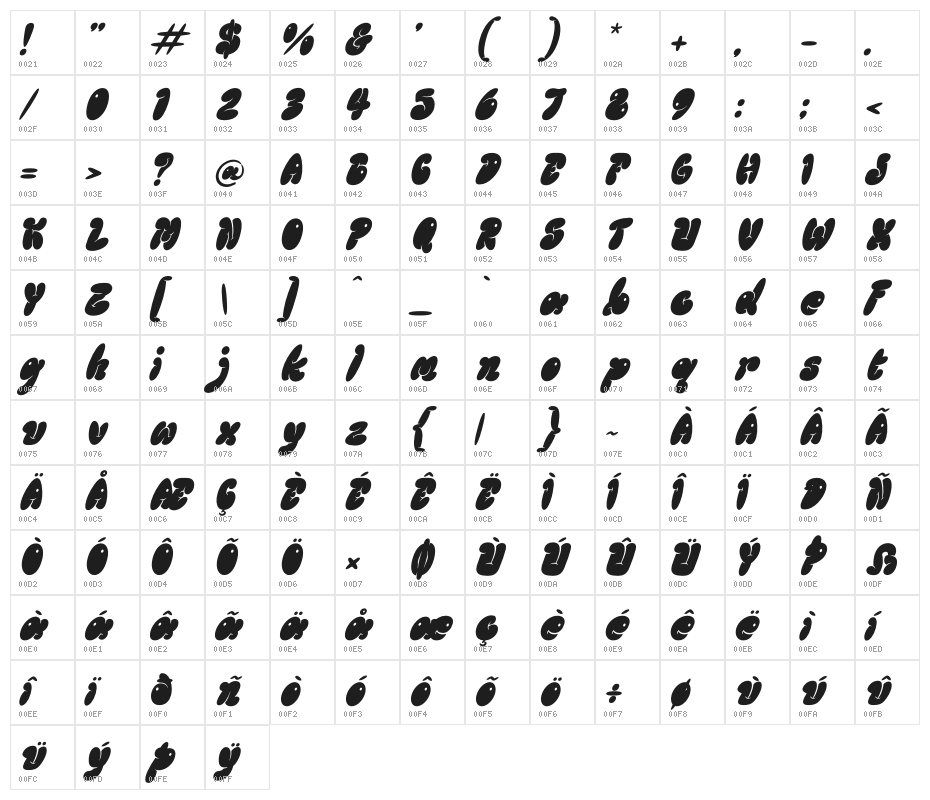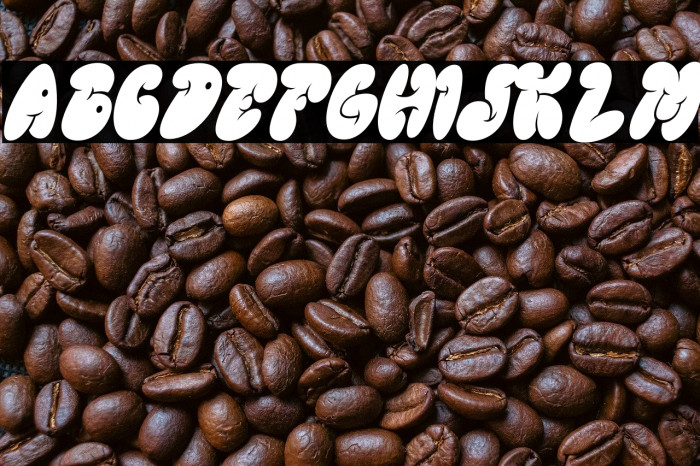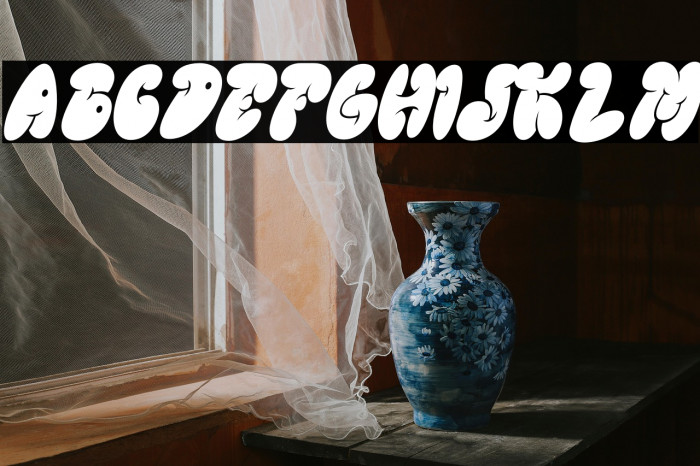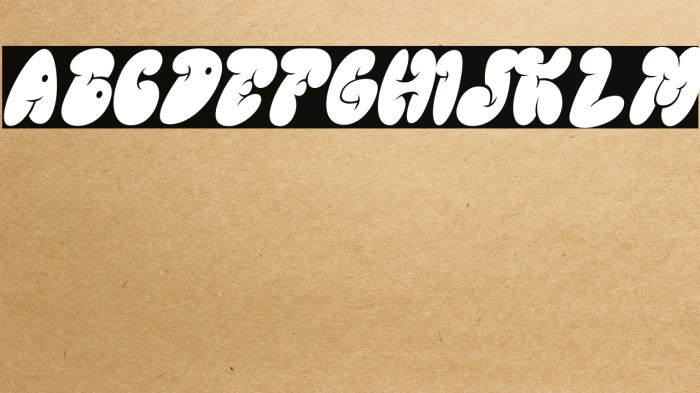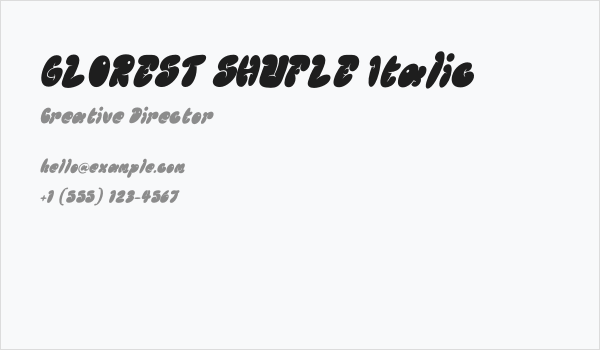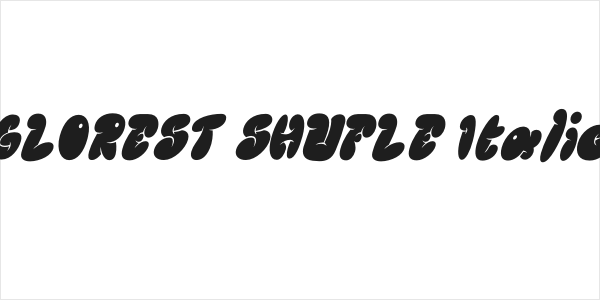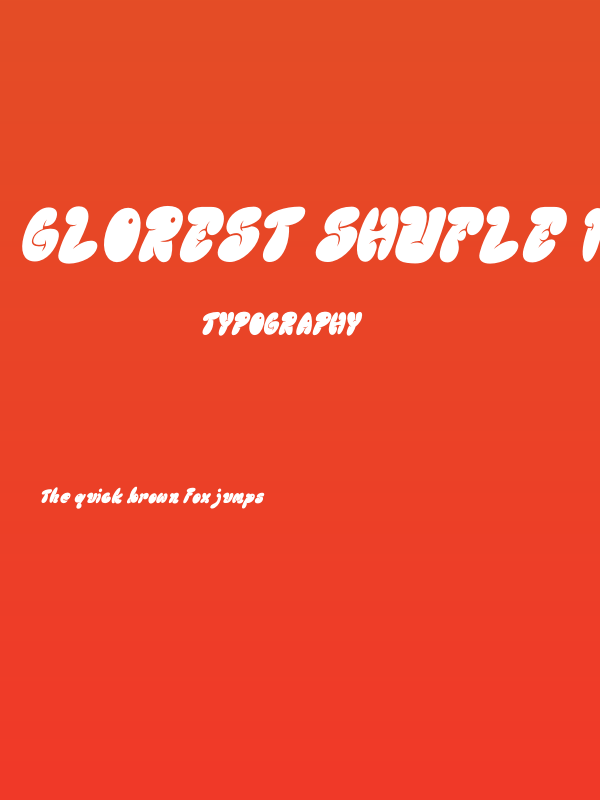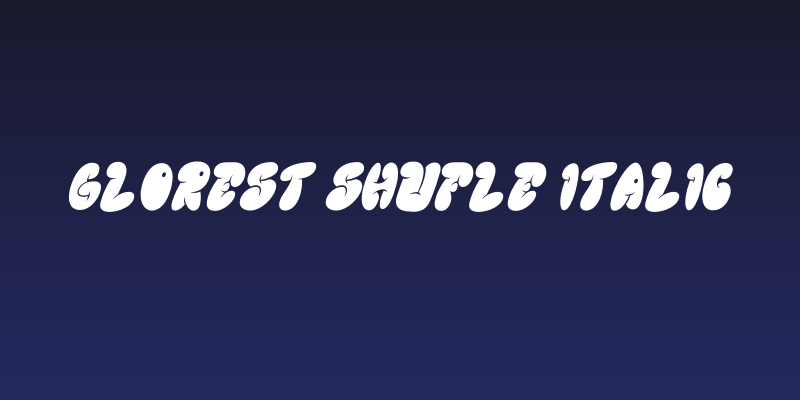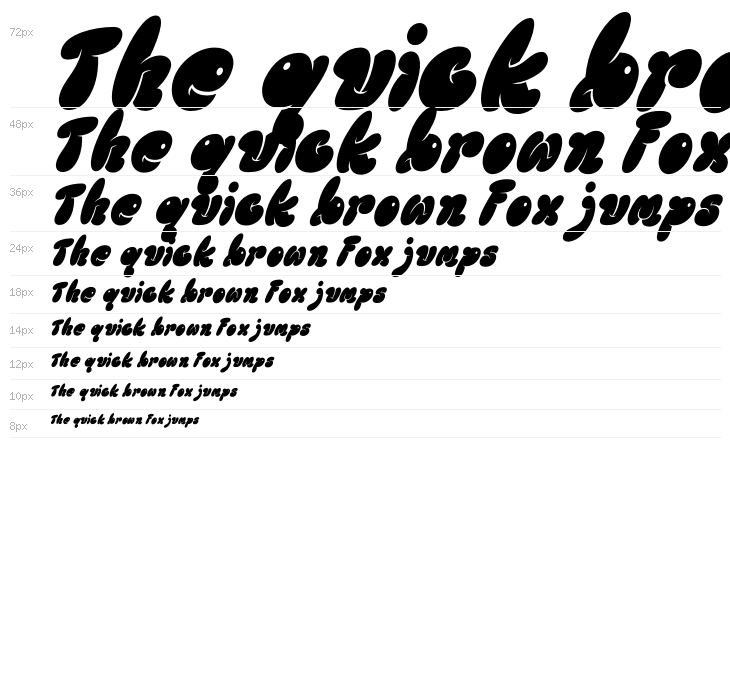
GLOREST SHUFLE Italic Font
GLOREST SHUFLE Italic Description
This font features a bold and playful design with a distinctly rounded and bubbly appearance. The characters are heavily stylized, with exaggerated curves and a sense of movement that gives them a dynamic and lively feel. The font maintains a consistent thickness throughout, contributing to its bold and impactful presence. The letters are closely spaced, enhancing the compact and cohesive look. Its unique style makes it stand out, perfect for creative and eye-catching designs.
| Overall Style | Playful, Dynamic, Bold |
| Use Case | Logos, Posters, Headlines |
| Proposed Projects | Ideal for children's book covers, playful branding, party invitations, and creative posters. |